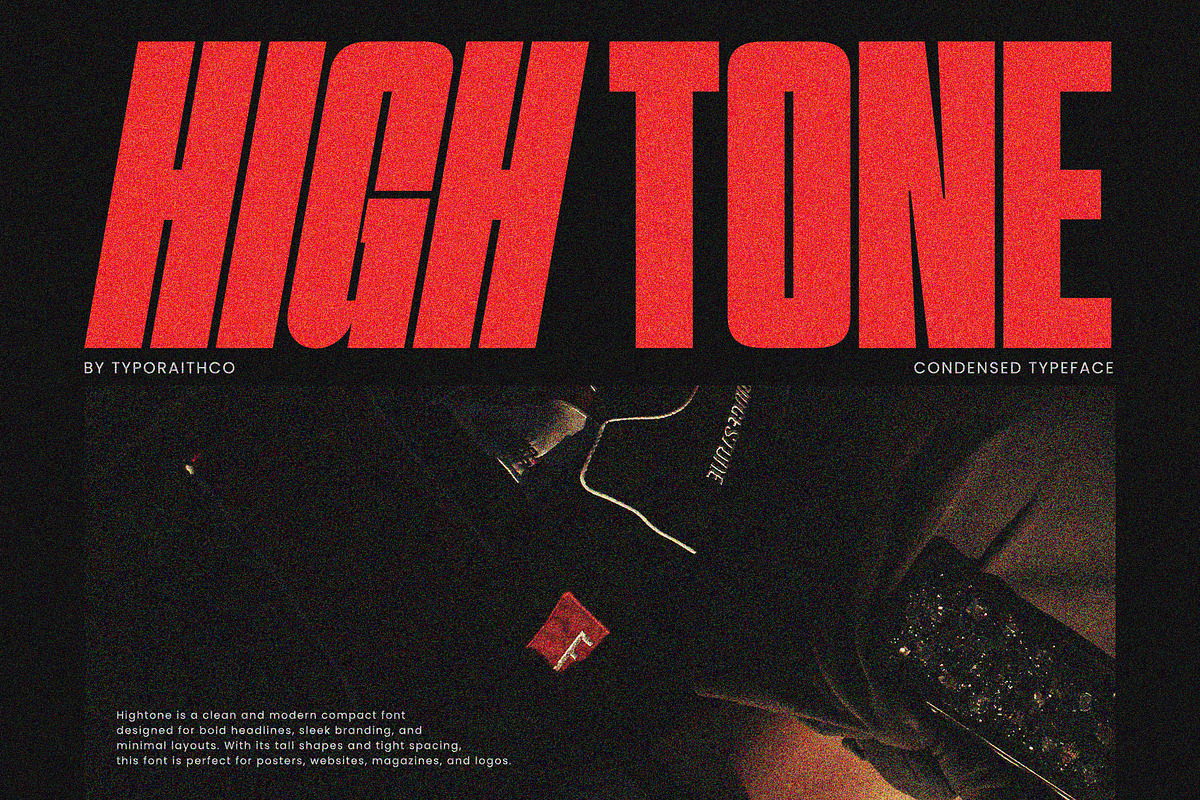
Transform your creative vision into bold, unforgettable visuals with Hightone—a dynamic font duo that masterfully fuses the nostalgic energy of past eras with the clean precision of today’s design standards. Designed for impact, this typeface doesn’t just sit on the page—it commands attention. Whether you’re crafting a high-energy synthwave poster, building a modern fashion brand identity, or developing an editorial layout that demands presence, Hightone delivers a visual rhythm that’s both striking and effortlessly stylish.
Two Styles. Infinite Possibilities.
Hightone isn’t just one font—it’s a powerful duo. The core pairing of Regular and Italic/Slanted variants gives you the creative freedom to build contrast, depth, and movement in your design. The Regular style brings sharp structure and confident stance, while the Italic/Slanted version adds a sense of motion, sophistication, and dynamic flair. Together, they form a cohesive system that works whether you’re using them side by side in a headline or pairing them in a layered composition.
- Perfect for Eye-Catching Headlines: The tall x-height and tight letter spacing create a condensed, impactful presence—ideal for titles that demand visibility.
- Sleek & Modern Branding: Use the clean lines and geometric precision to build premium logos and wordmarks for lifestyle, fashion, tech, and music brands.
- High-Impact Poster & Cover Design: Convey energy and mood in minimal space—perfect for album covers, concert flyers, and event promotions.
Design with Purpose: Built for Modern Aesthetics
Every curve, stroke, and counterform in Hightone has been refined to serve both visual harmony and functional clarity. The font’s signature tight spacing creates a compact, energetic appearance, while the tall characters ensure maximum visual presence even at smaller sizes. This balance between density and legibility makes Hightone uniquely effective in layouts where space is precious and impact is paramount.
But this isn’t just about looks—it’s about feeling. Hightone carries a subtle retro charm reminiscent of 1980s design aesthetics—think vintage signage, classic movie titles, and synthwave visual culture—yet it’s fully equipped for today’s clean, digital-first workflows. This intentional duality makes it perfect for projects that want to evoke nostalgia while feeling undeniably current.
Unleash Your Creative Vision in Any Medium
Hightone isn’t limited to one niche—it thrives across a spectrum of design disciplines. Use it to:
- Build Synthwave & Retro-Futuristic Branding: Capture the neon-lit energy of vaporwave and retrowave culture with a modern twist.
- Create Fashion & Lifestyle Identity Kits: Design packaging, lookbooks, and social media content that feels premium and intentional.
- Develop Music & Event Graphics: Make concert posters, album covers, and digital promotions stand out in crowded visual fields.
- Enhance Editorial & Magazine Layouts: Use for pull quotes, section headers, and creative headlines that break the monotony.
- Power Web & UI Typography: Use in navigation bars, banners, and CTAs for a bold, modern touch.
Technical Excellence for Real-World Design
Why Hightone Is the Right Choice for Your Next Project
In a world of generic fonts, Hightone stands apart. It’s not just a typeface—it’s a design partner. It speaks to creatives who value impact, identity, and distinction. It’s the font that turns a concept into a statement, a logo into a legacy, and a title into a moment.